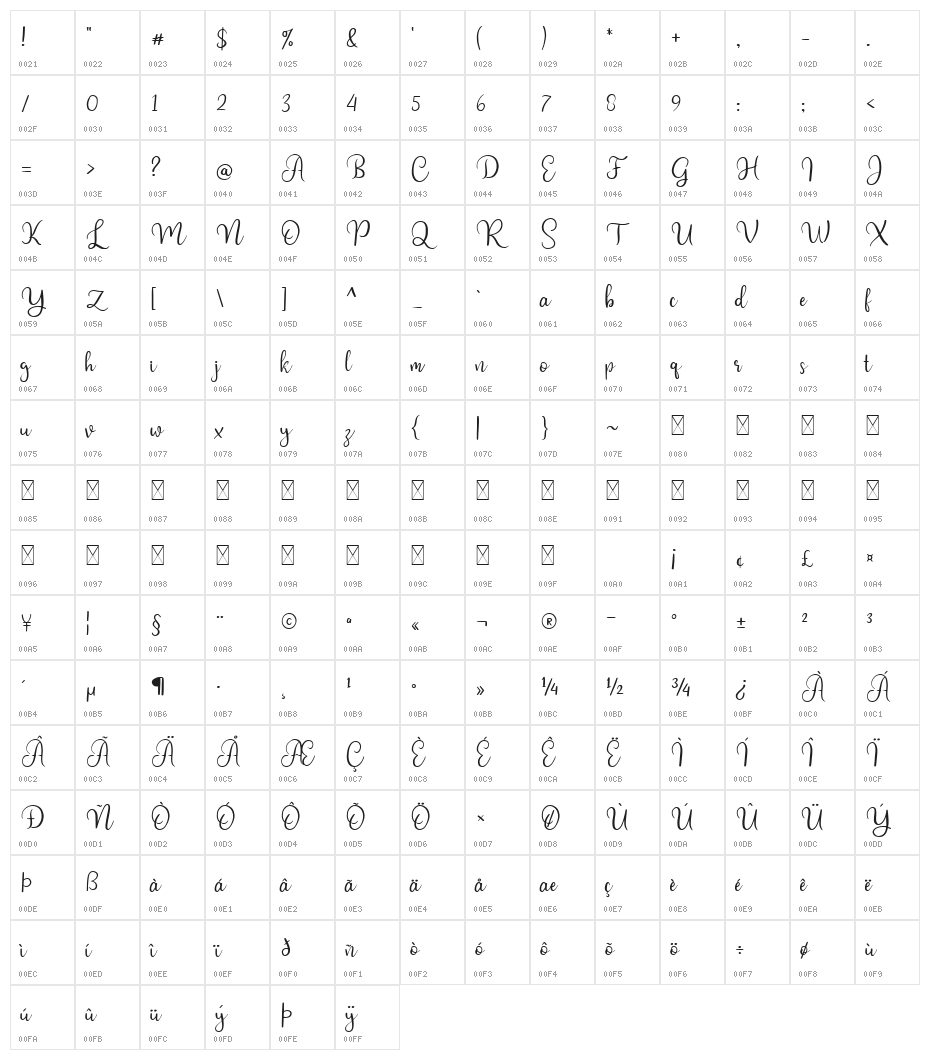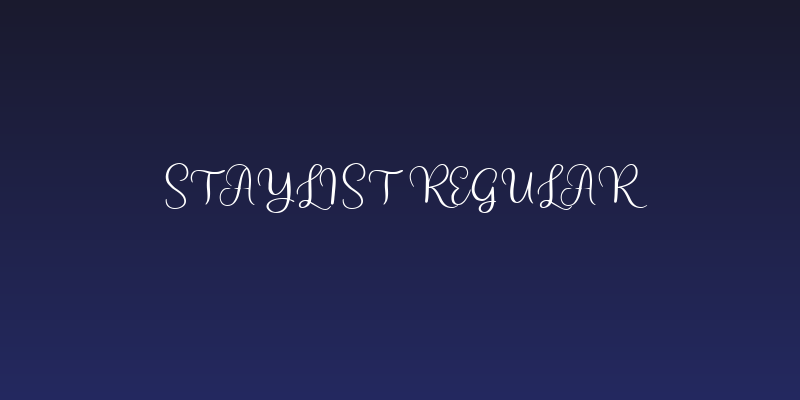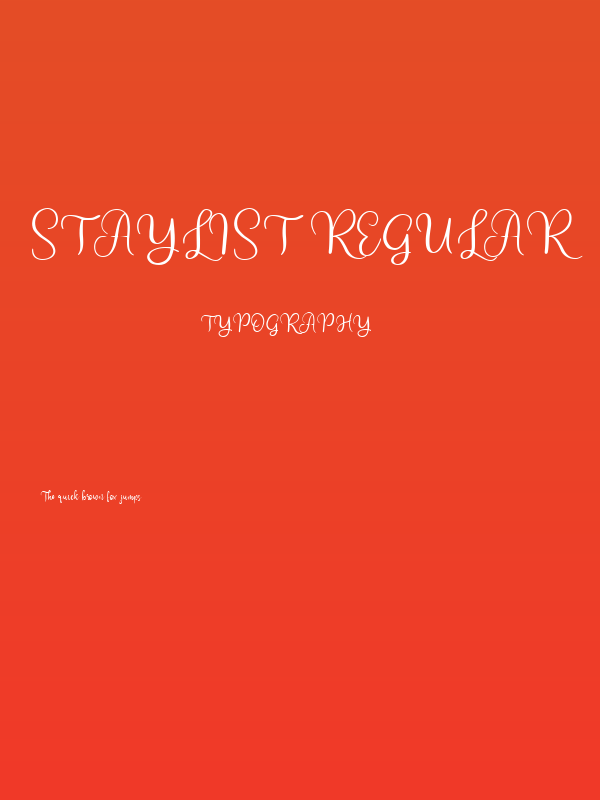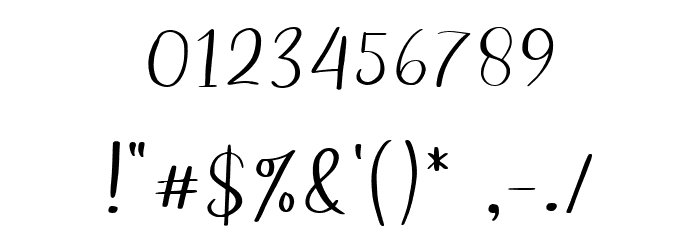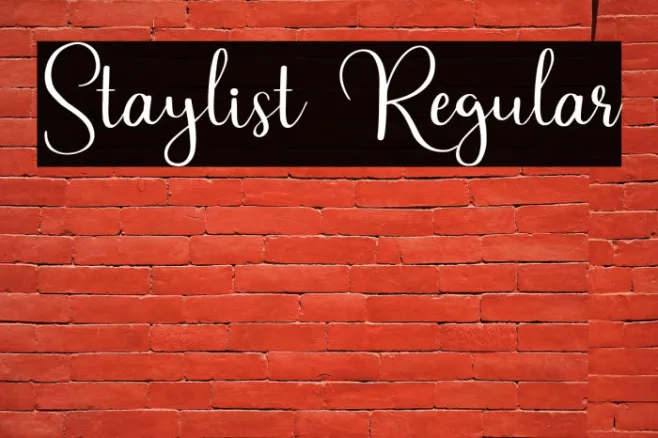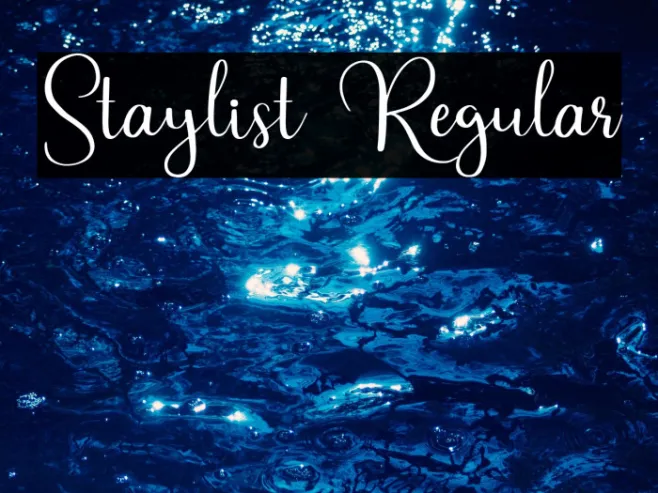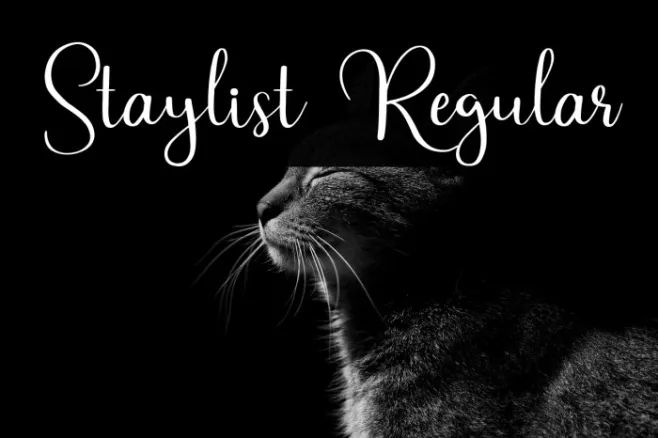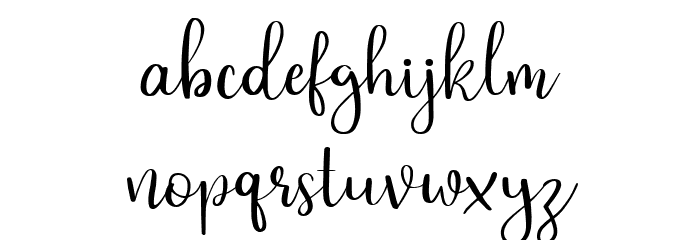
Staylist Regular Font
Staylist Regular Description
This font exudes elegance and sophistication with its flowing, cursive style. The uppercase letters are characterized by their graceful loops and swirls, creating a sense of movement and fluidity. The lowercase letters maintain a consistent style, with smooth curves and a slightly playful touch. The numerals are clear and stylish, complementing the overall aesthetic. Special characters are thoughtfully designed to match the font's elegant theme. This font is perfect for projects that require a touch of class and refinement, such as wedding invitations, branding, and high-end product packaging.
| Proposed Projects | Ideal for wedding invitations, luxury branding, and elegant product packaging. |